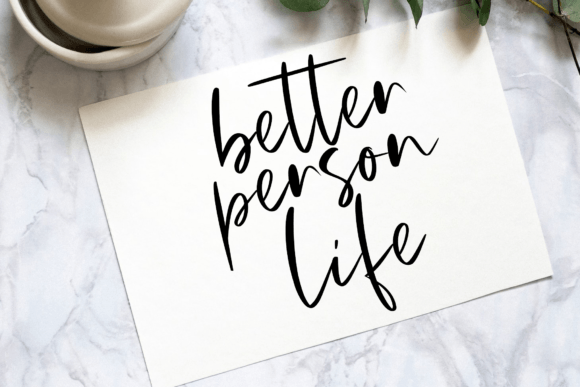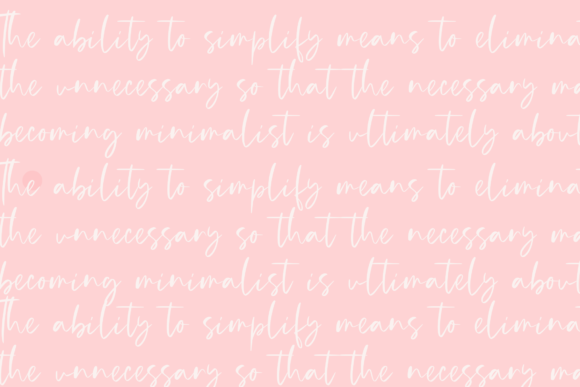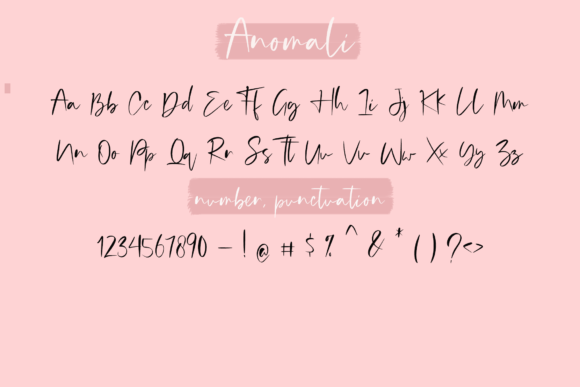
Introducing Anomali Font: Elevate Your Designs with a Modern Handwritten Script
Are you tired of using the same old fonts in your creative projects? Look no further! Anomali Font is here to revolutionize your designs with its modern and flowing handwritten script style. In this article, we’ll dive into the world of Anomali Font, exploring its features, benefits, and uses, as well as provide tips on how to incorporate it into your projects.
What is Anomali Font?
Anomali Font is a beautifully crafted handwritten script font that exudes elegance and sophistication. Its modern and flowing design makes it perfect for a wide range of creative projects, from branding and advertising to packaging and digital media. With its unique and eye-catching style, Anomali Font is sure to make your designs stand out from the crowd.
Key Features of Anomali Font
- Modern and flowing design: Anomali Font boasts a sleek and contemporary design that will add a touch of sophistication to your projects.
- Handwritten script style: The font’s handwritten script style gives it a personal and organic feel, making it perfect for designs that require a human touch.
- Highly legible: Despite its elegant design, Anomali Font is highly legible, making it suitable for use in a variety of contexts, from headings to body text.
- Versatile: Anomali Font can be used in a wide range of creative projects, from digital media to print materials.
Benefits of Using Anomali Font
So, why should you choose Anomali Font for your creative projects? Here are just a few benefits of using this amazing font:
- Adds elegance and sophistication: Anomali Font’s modern and flowing design adds a touch of elegance and sophistication to your designs, making them perfect for high-end brands and luxury products.
- Creates a personal touch: The font’s handwritten script style gives your designs a personal and organic feel, making them more relatable and engaging.
- Improves readability: Anomali Font’s high legibility ensures that your message is conveyed clearly and effectively, making it perfect for use in body text and headings.
- Versatile and adaptable: Anomali Font can be used in a wide range of creative projects, from digital media to print materials, making it a versatile addition to your font library.
Using Anomali Font in Your Creative Projects
So, how can you incorporate Anomali Font into your creative projects? Here are a few ideas to get you started:
- Branding and advertising: Use Anomali Font to create elegant and sophisticated brand identities, logos, and advertising materials.
- Packaging design: Add a touch of luxury and sophistication to your packaging designs with Anomali Font.
- Digital media: Use Anomali Font in your digital media projects, such as social media graphics, blog posts, and website designs.
- Print materials: Incorporate Anomali Font into your print materials, such as brochures, flyers, and business cards.
Tips for Getting the Most Out of Anomali Font
To get the most out of Anomali Font, here are a few tips to keep in mind:
- Experiment with different sizes and colors: Anomali Font looks great in a variety of sizes and colors, so don’t be afraid to experiment and find the perfect combination for your project.
- Pair it with other fonts: Anomali Font pairs well with a range of other fonts, so try combining it with other fonts to create a unique and interesting design.
- Use it consistently: To create a cohesive and professional design, use Anomali Font consistently throughout your project.
In conclusion, Anomali Font is a modern and flowing handwritten script font that is perfect for creative projects that require elegance and sophistication. With its highly legible design, versatile style, and range of uses, Anomali Font is a valuable addition to any font library. So why not give it a try and see the amazing results for yourself?